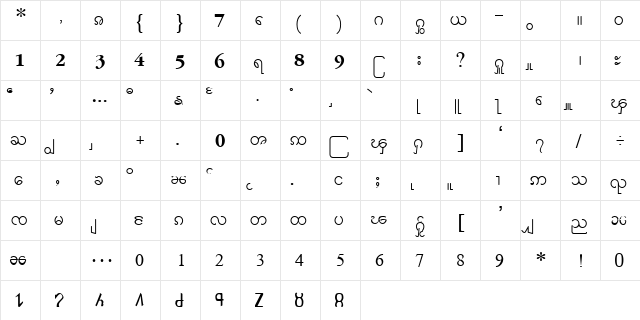
A_ShanBB Normal
Design Context for A_ShanBB Typeface
A_ShanBB offers clean, dependable letterforms without strong stylistic allegiance, making it a practical choice for designers who need flexibility.